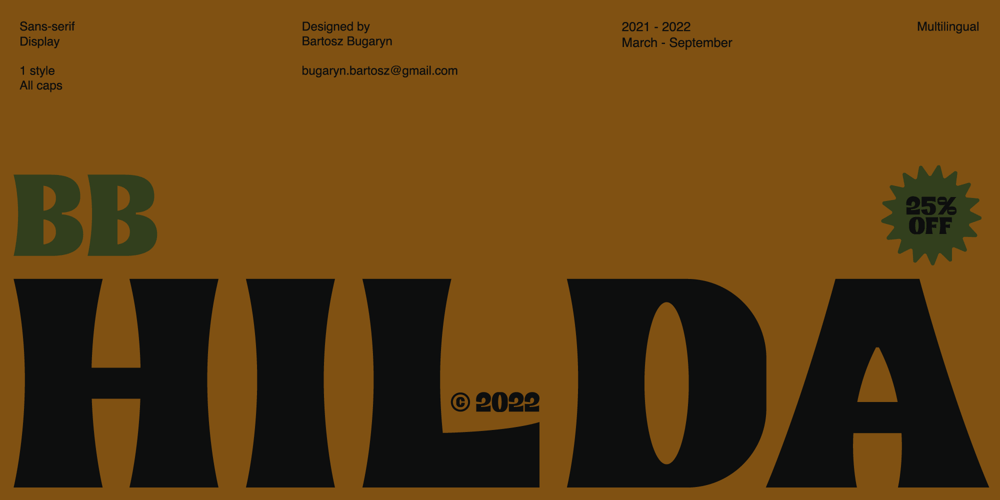
BB Hilda Font Family was designed by Bartosz Bugaryn and published by Bartosz Bugaryn. BB Hilda contains 1 styles and family package options. Hilda is an ode to countryside. This typeface is inspired by the peace that comes with escaping the city and drinking a cup of coffee while listening to the chirping of birds. The name comes from a cartoon series “Hilda” based on comic series by Luke Pearson.I describe it with 2 words – elegant and playful. It is an all caps, display font that can be used for titles and short texts. Hilda is multilingual and if it gains enough recognition I am willing to add more weights and styles!